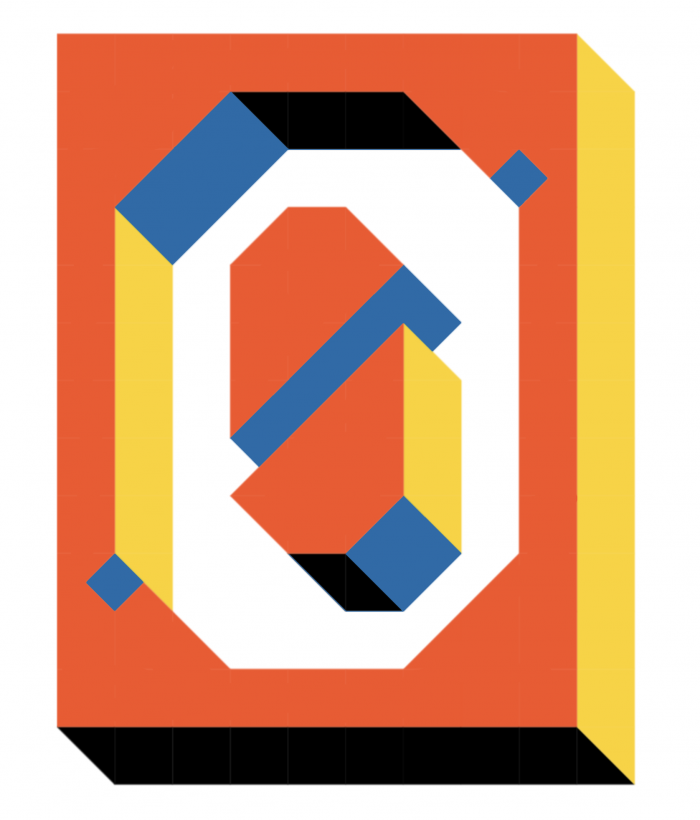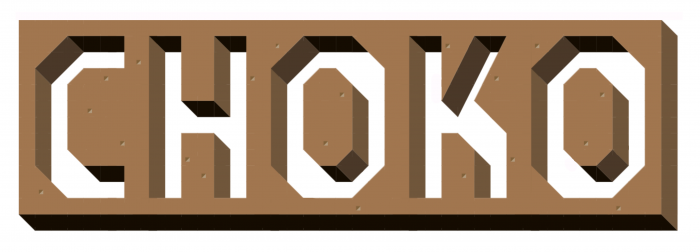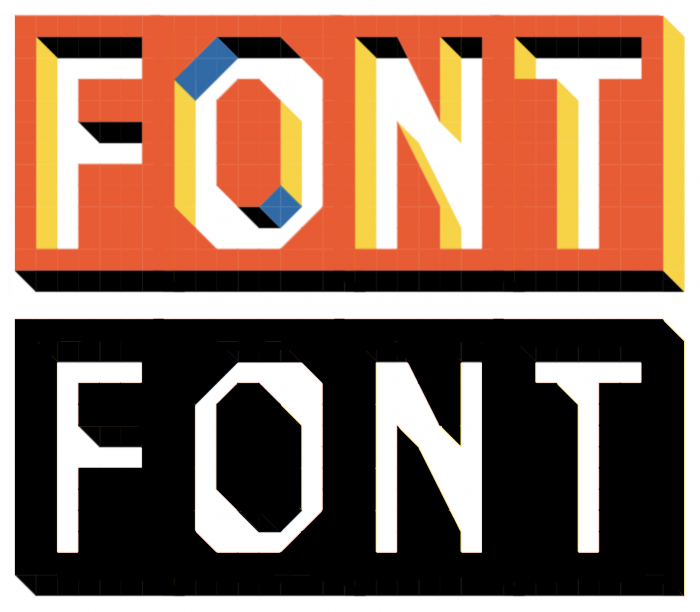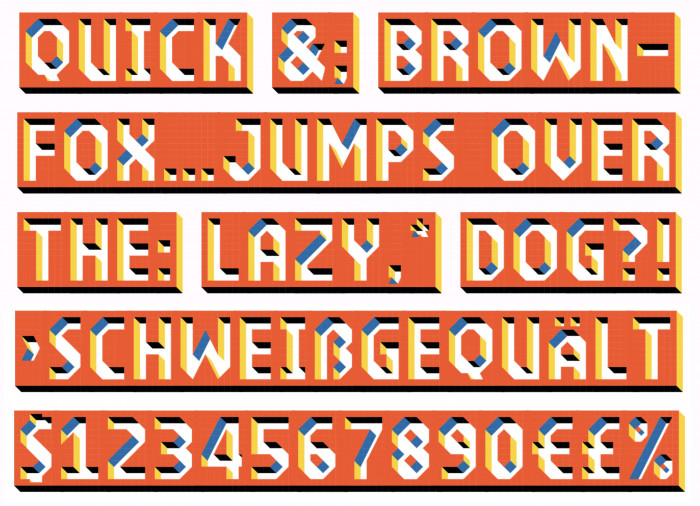
This is just a silly unicase font with alternates, made with simple squares and triangles (and some few other bricks)... But the colours captivated me. I hope you like the result. PS: You can also find an additional colour space (if you need it) in the "|" glyph.
And honey on flakes: I'm also finishing a choko version of the font (which is what it was created for). Do you like chocolate?
@elmoyenique - WOW.  Very nice cut-out effect, enhanced by judicious choice of colors!  Spellbinding work here.
Great work once more from one of my favo FontStructors!
It somewhat reminds me of tony chocolonely's wrapping!
This is lovely! It can work instantly as a dressed-up logo. 10/10
bro the Q is thicc lol
nice font!
perhaps there should also be a thick variant with deeper cuts.
Wow, I'm only just now discovering all the potentials of colored fonts. If i can figure this out, i will try to purchase the patron membership...  Amazing work as always my friend. It looks like corridors in a 3D puzzle videogame.